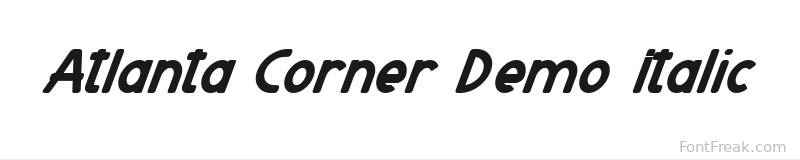
Atlanta Corner Demo Italic
The Atlanta Corner Demo Italic font by Noah Type is a striking display typeface that beautifully combines elegance and flair. This italic style, characterized by its playful curves and spirited strokes, offers a unique blend of modernity and whimsy. The font features a medium stroke weight with subtle contrast, allowing for effective readability while maintaining a decorative touch. Its generous spacing contributes to a clean and airy feel, making it visually appealing for a variety of design applications.
Ideal use cases for the Atlanta Corner Demo Italic font include wedding invitations, where its charming style can enhance the romantic theme. It also shines in movie posters, attracting attention with its bold and dynamic character. Restaurant menus can benefit from its engaging design, drawing customers in with its distinct personality. Additionally, this font is perfect for branding materials, such as logos and promotional graphics, helping small business owners convey a unique identity.
Graphic designers and content creators will find the Atlanta Corner Demo Italic font particularly useful in projects that demand a touch of creativity and individuality. Its versatility allows for seamless integration across various media, ensuring that it can adapt to different themes and concepts.
What sets the Atlanta Corner Demo Italic font apart is its ability to maintain a playful yet professional demeanor. This font is not just a typeface; it is a statement that enhances the visual narrative of any project. With the Atlanta Corner Demo Italic font free download, you can easily incorporate this charming design element into your work, making it an essential addition to your typographic toolkit.